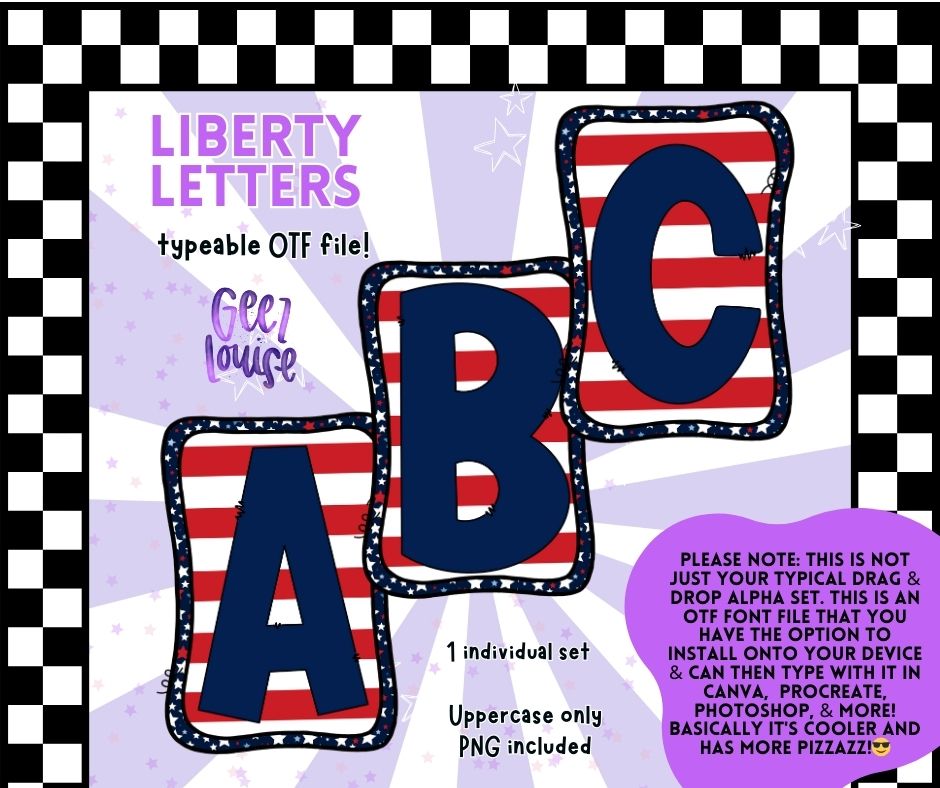
Bring bold, patriotic vibes to your designs with the Liberty Letters OTF font and matching PNG alpha set! Featuring uppercase letters styled in red and white stripes with a navy star border, this font is perfect for Independence Day designs, military themes, or year-round USA pride.
Add fireworks to your text with this USA-themed font that’s ideal for sublimation, digital designs, shirts, party invites, and more.